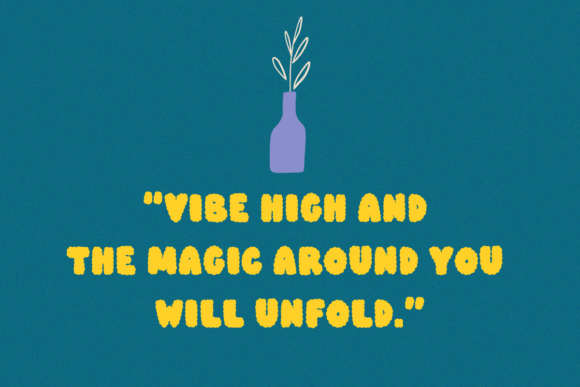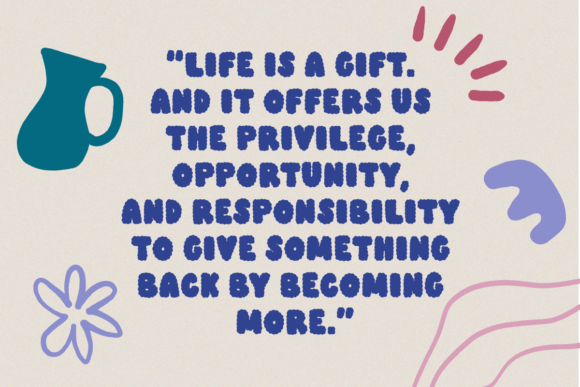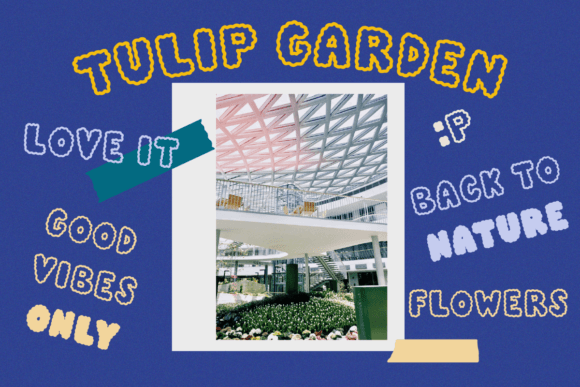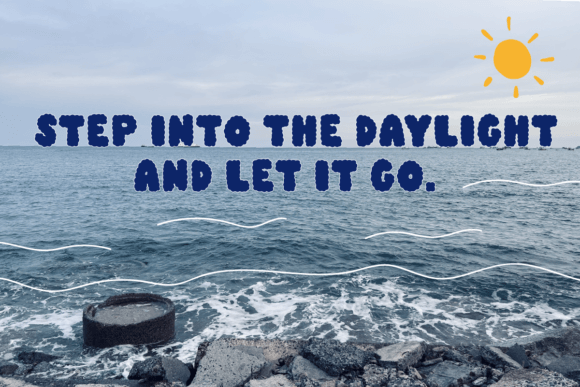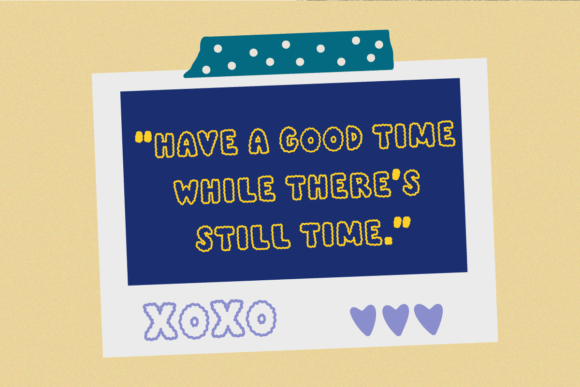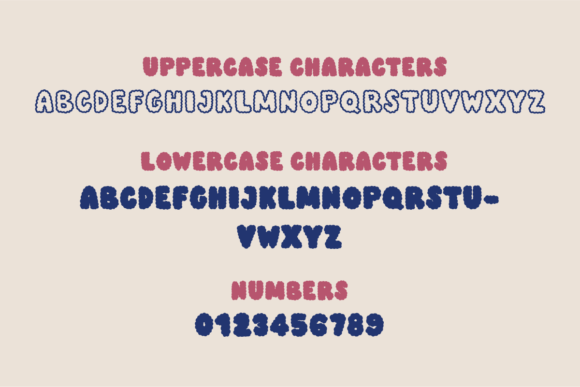
Introducing Good Vibes Font: The Ultimate Decorative Font for Creative Projects
Are you a designer, crafter, or DIY enthusiast looking for a font that can add a touch of playfulness and whimsy to your projects? Look no further than Good Vibes Font, a fluffy decorative font that’s perfect for a wide range of creative applications. In this article, we’ll take a closer look at the Good Vibes Font and explore its features, uses, and benefits.
What is Good Vibes Font?
Good Vibes Font is a decorative font designed to bring a sense of fun and playfulness to your projects. Its fluffy texture and retro vibe make it an ideal choice for designers and crafters who want to add a personal touch to their work. Whether you’re creating circuit projects, shirts, retro designs, invitations, mugs, stickers, or playful quotes, Good Vibes Font is the perfect choice.
Key Features of Good Vibes Font
- Fluffy Texture: Good Vibes Font features a unique fluffy texture that adds a tactile feel to your projects.
- Decorative Style: This font is designed to be decorative, making it perfect for projects that require a touch of personality.
- Retro Vibe: Good Vibes Font has a retro vibe that’s reminiscent of vintage designs from the 80s and 90s.
- Versatile: This font can be used for a wide range of projects, from posters and logos to greeting cards and packaging.
Uses of Good Vibes Font
Good Vibes Font is a versatile font that can be used for a variety of creative projects, including:
- Circuit Projects: Add a touch of personality to your circuit projects with Good Vibes Font.
- Shirts and Apparel: Create custom shirts and apparel with Good Vibes Font for a unique and playful look.
- Retro Designs: Good Vibes Font is perfect for retro-style designs, including posters, flyers, and brochures.
- Invitations: Add a touch of whimsy to your invitations with Good Vibes Font.
- Mugs and Drinkware: Create custom mugs and drinkware with Good Vibes Font for a fun and playful look.
- Stickers and Decals: Use Good Vibes Font to create custom stickers and decals for your projects.
- Playful Quotes: Add a touch of personality to your quotes and sayings with Good Vibes Font.
- Posters and Graphics: Create eye-catching posters and graphics with Good Vibes Font.
- Logos and Branding: Use Good Vibes Font to create unique and memorable logos and branding materials.
- Greeting Cards: Add a touch of personality to your greeting cards with Good Vibes Font.
- Packaging: Use Good Vibes Font to create custom packaging for your products.
- Illustrations: Good Vibes Font is perfect for decorating illustrations and adding a touch of personality to your artwork.
Benefits of Using Good Vibes Font
There are many benefits to using Good Vibes Font for your creative projects. Here are a few:
- Unique and Playful: Good Vibes Font adds a unique and playful touch to your projects, making them stand out from the crowd.
- Versatile: Good Vibes Font can be used for a wide range of projects, making it a great addition to your font library.
- High-Quality: This font is designed to be high-quality and easy to read, making it perfect for both digital and print projects.
| Font Name | Good Vibes Font |
| Author | Nyla.studio |
In conclusion, Good Vibes Font is a versatile and playful font that’s perfect for designers, crafters, and DIY enthusiasts. Its fluffy texture, decorative style, and retro vibe make it an ideal choice for a wide range of creative projects. Whether you’re creating circuit projects, shirts, retro designs, invitations, mugs, stickers, or playful quotes, Good Vibes Font is the perfect choice. With its ease of use, high-quality design, and versatility, Good Vibes Font is a great addition to any font library.